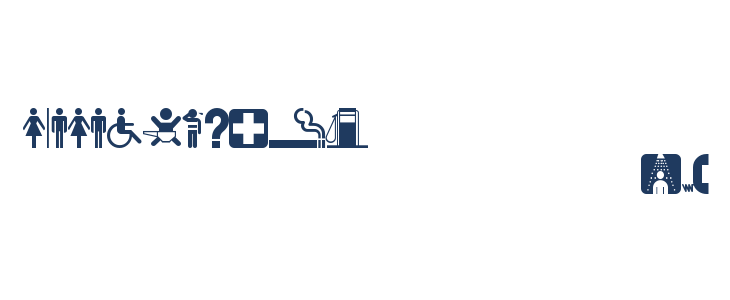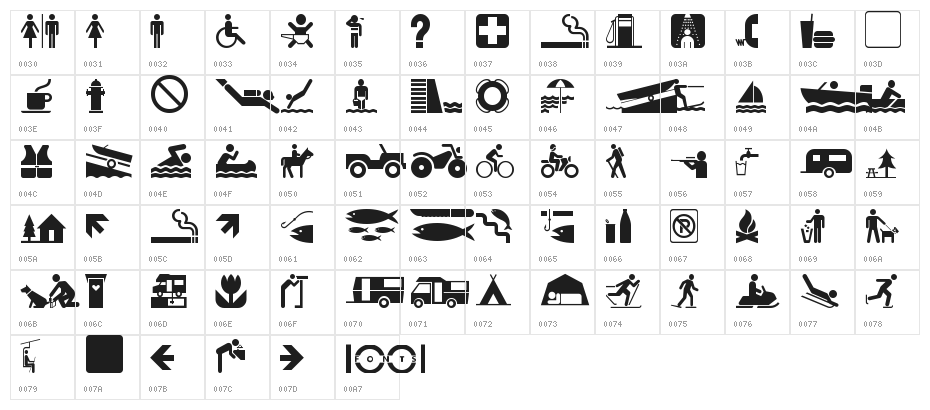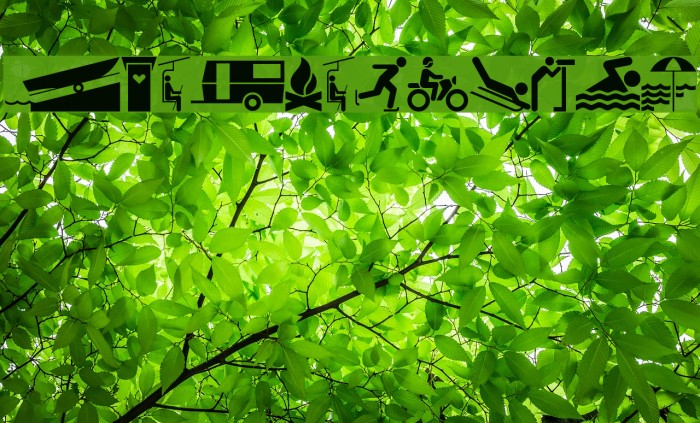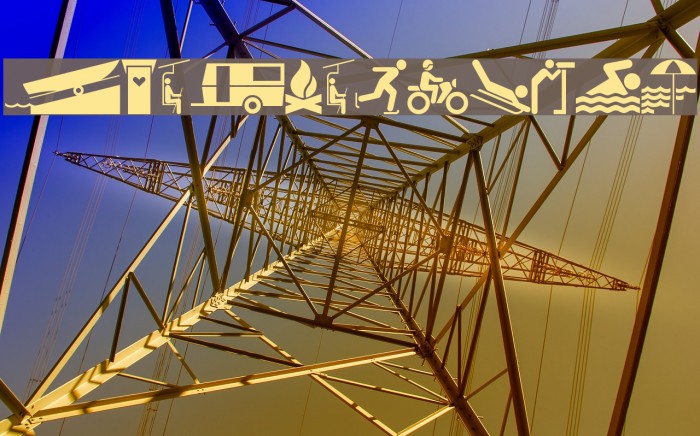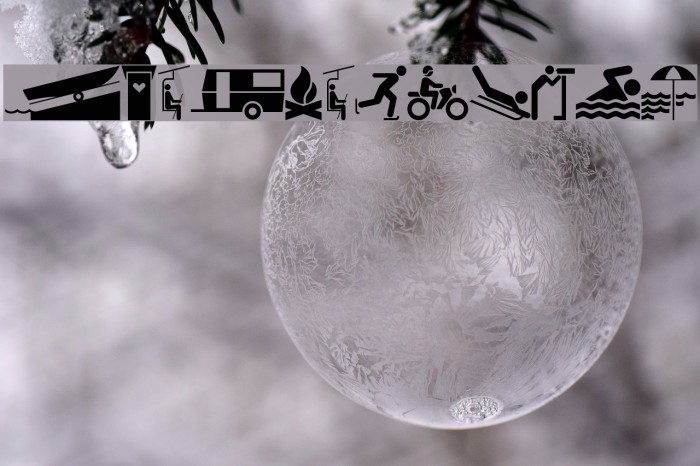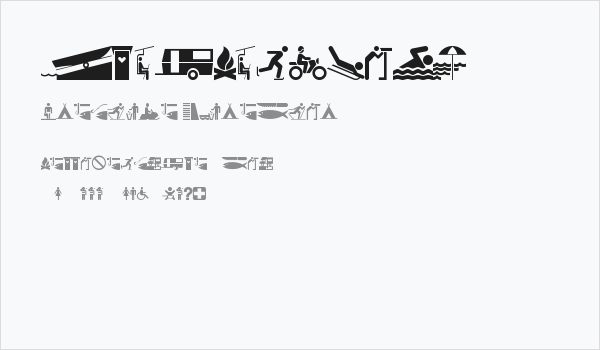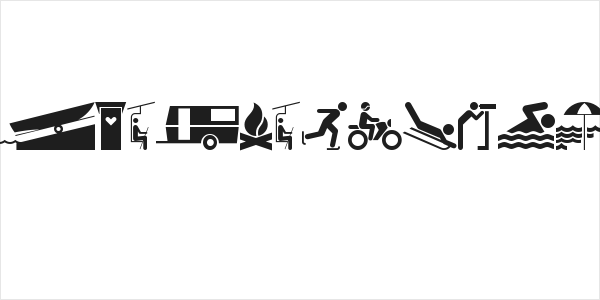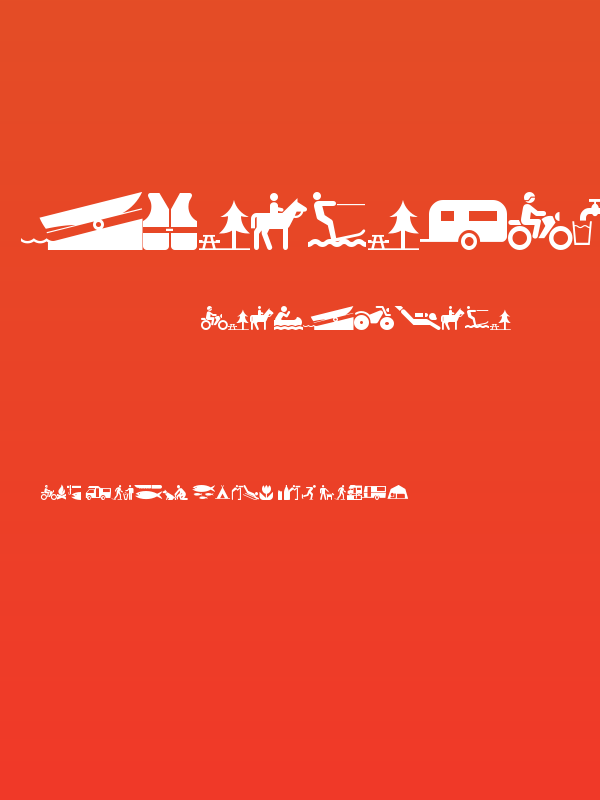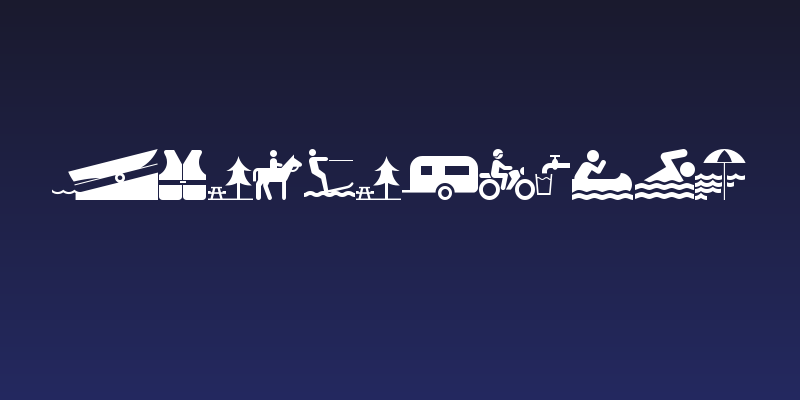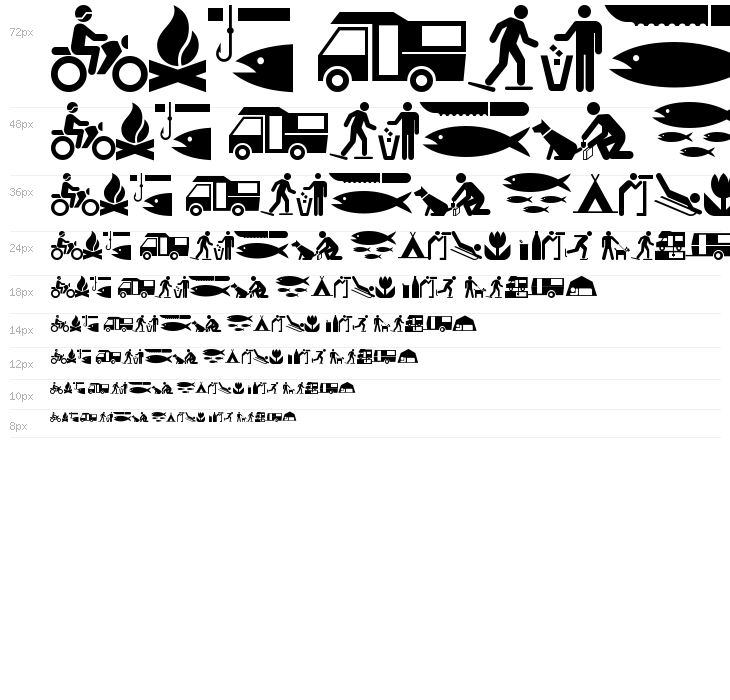
GlyphyxTwoNF Font
GlyphyxTwoNF Description
This is a collection of pictographic symbols representing various outdoor and recreational activities. The symbols include images of people engaging in activities such as swimming, cycling, camping, and fishing. Each symbol is designed with bold, clear lines, making them easily recognizable and suitable for signage. The style is consistent throughout, with a focus on simplicity and clarity, ensuring that each icon communicates its intended message effectively. These symbols are ideal for use in environments where quick visual communication is necessary, such as parks, recreational areas, and public spaces.
| Use Case | Signage, Informational displays |
| Proposed Projects | Ideal for signage in parks, recreational areas, and public spaces to indicate activities and facilities. |